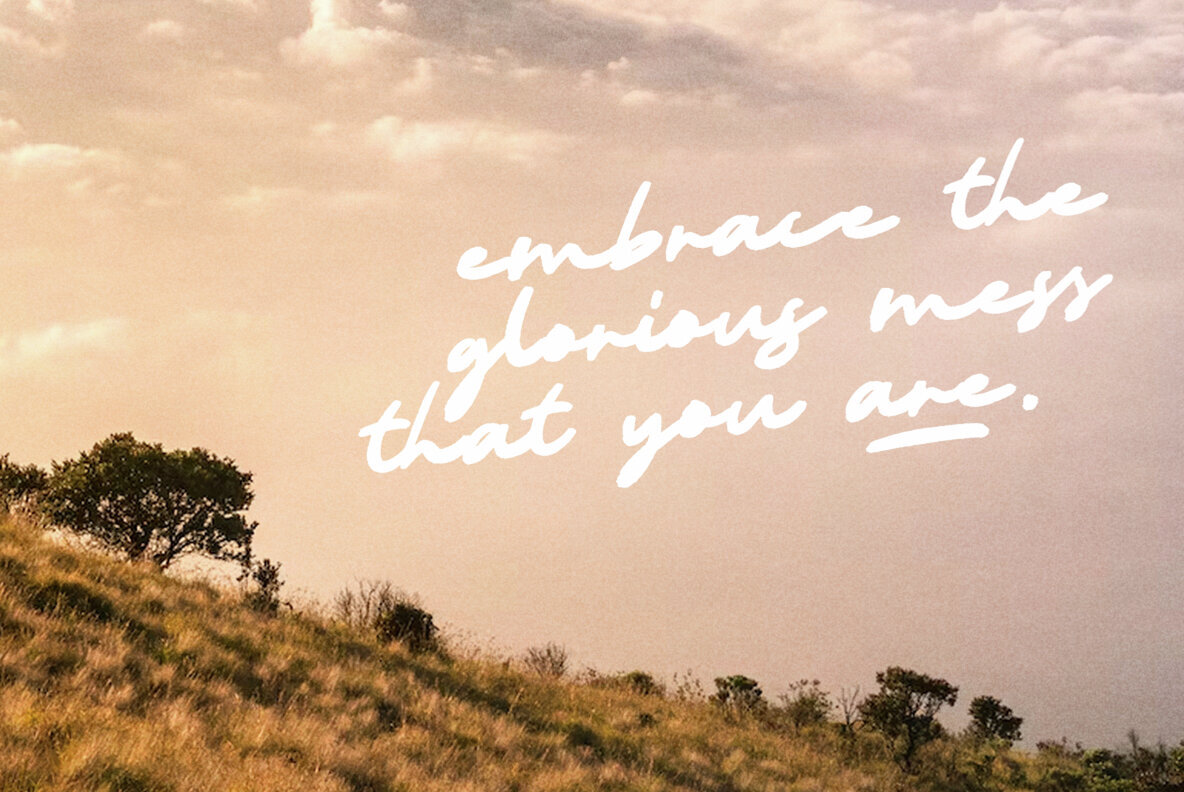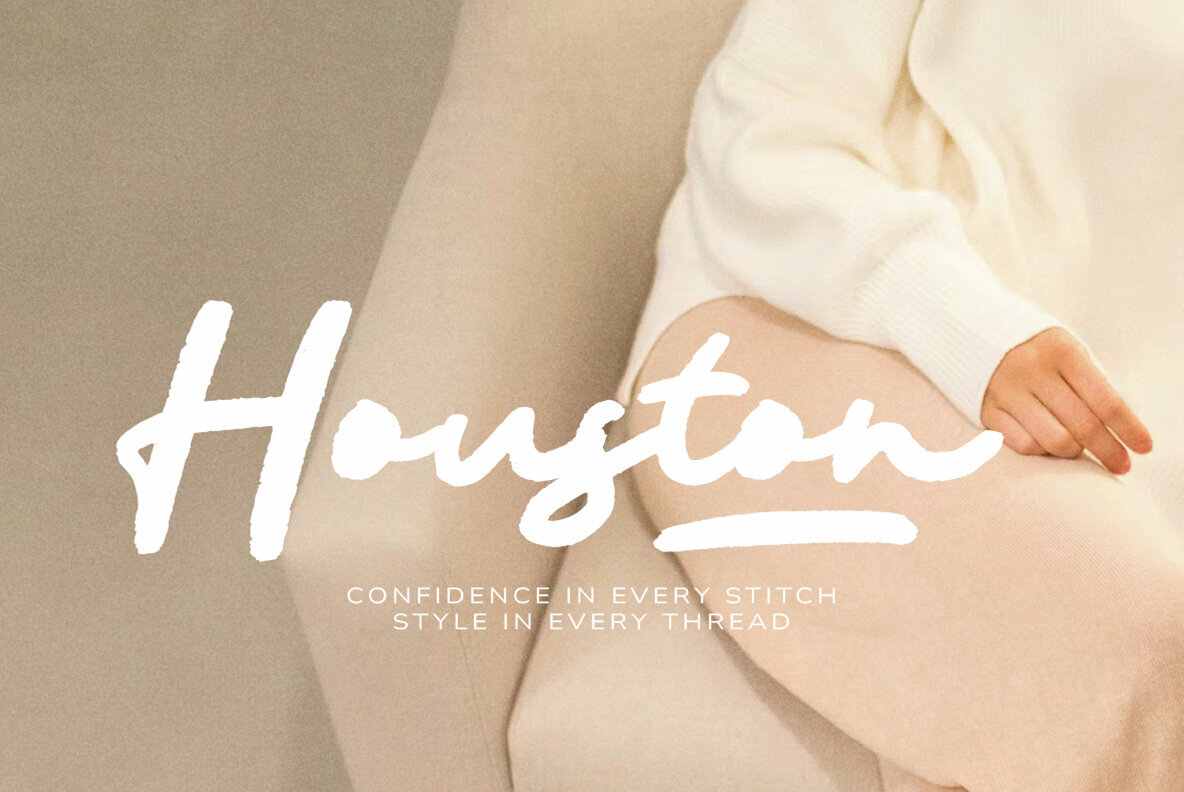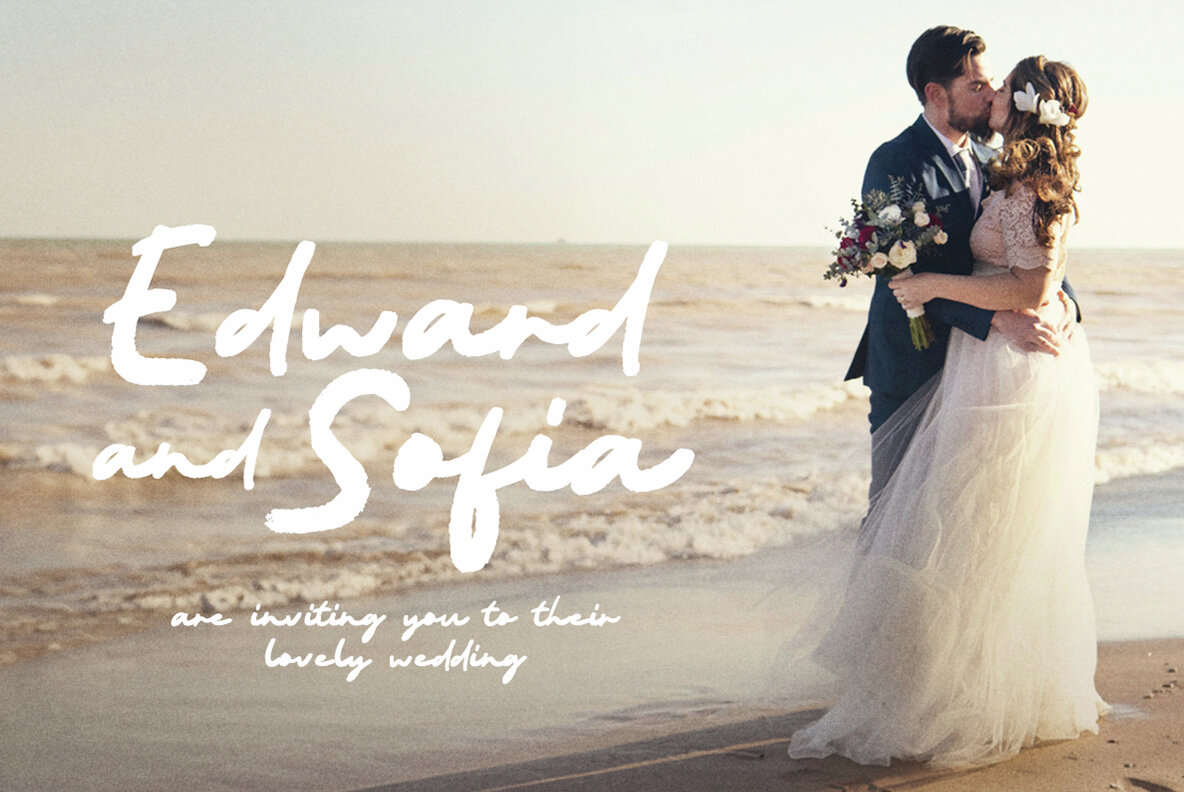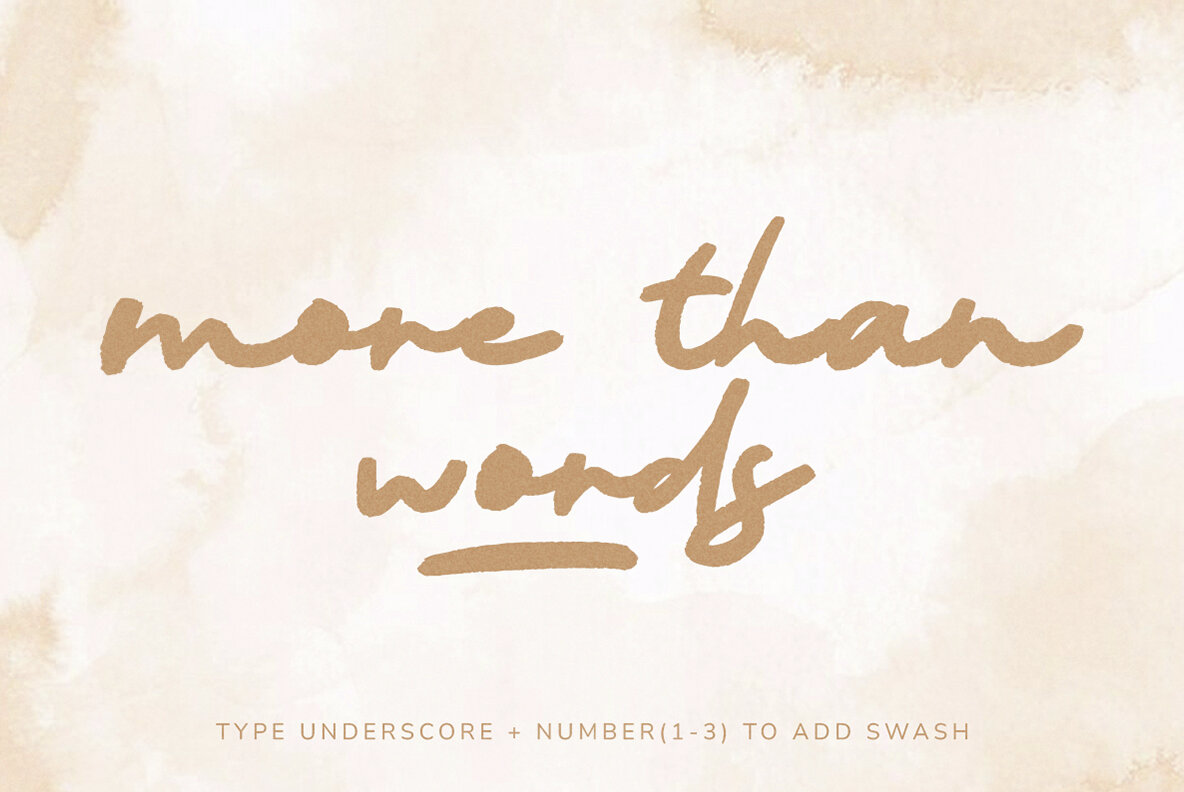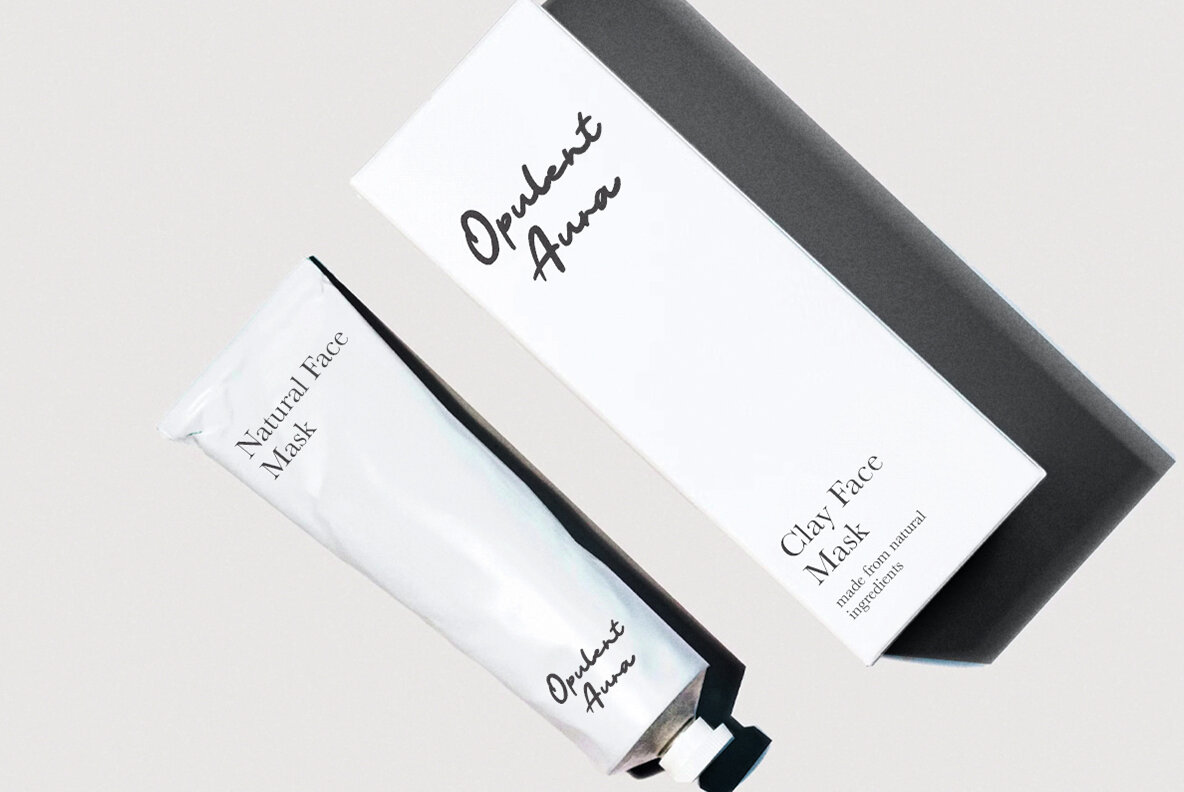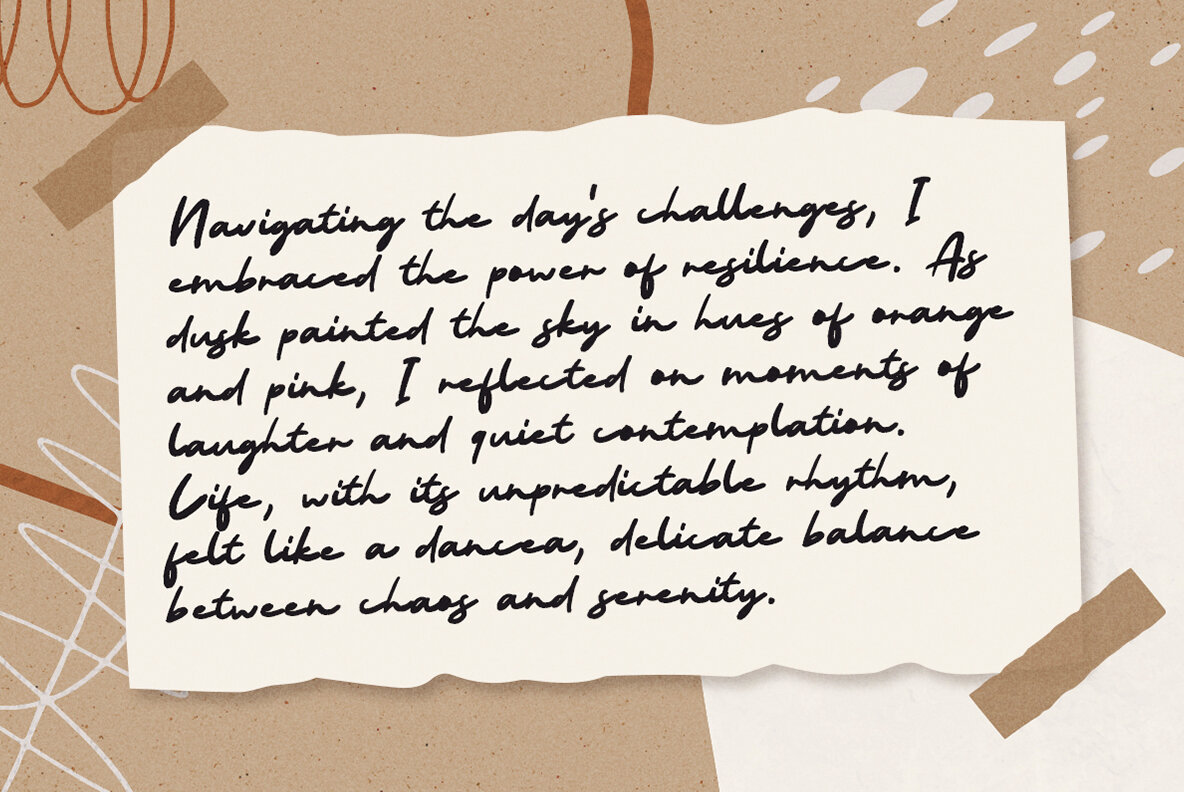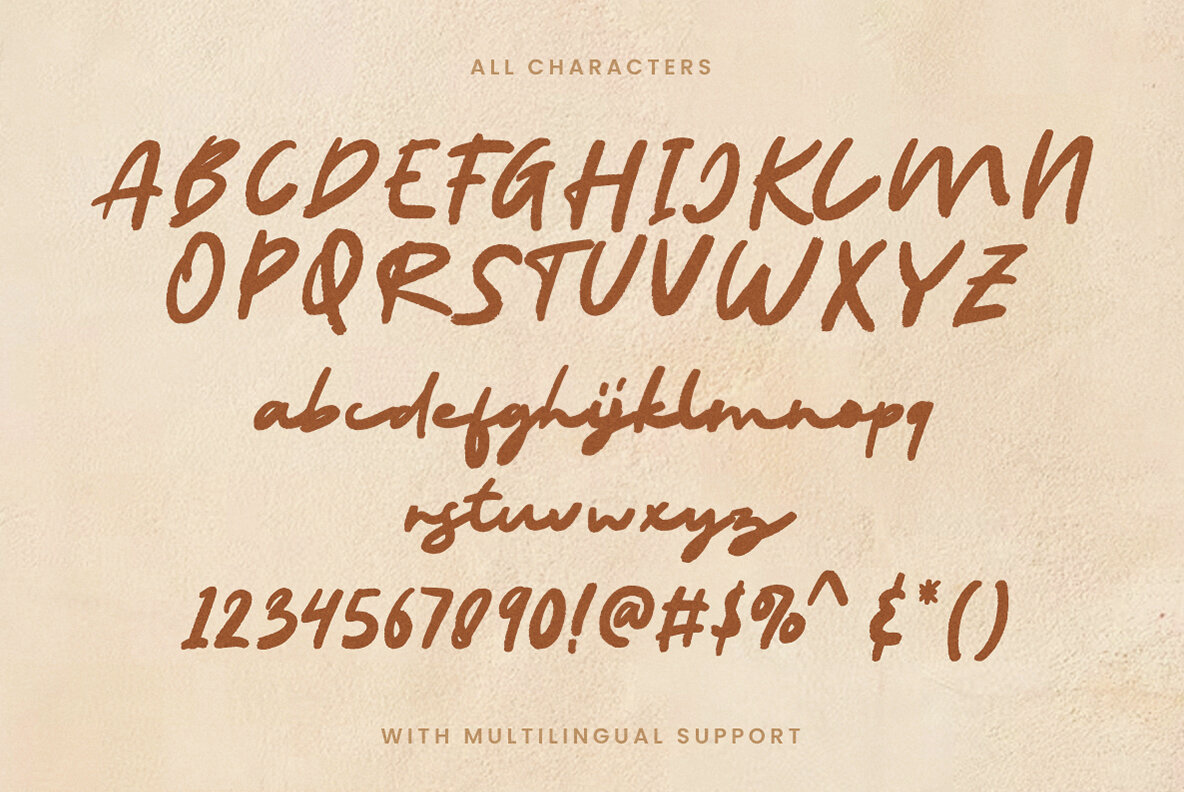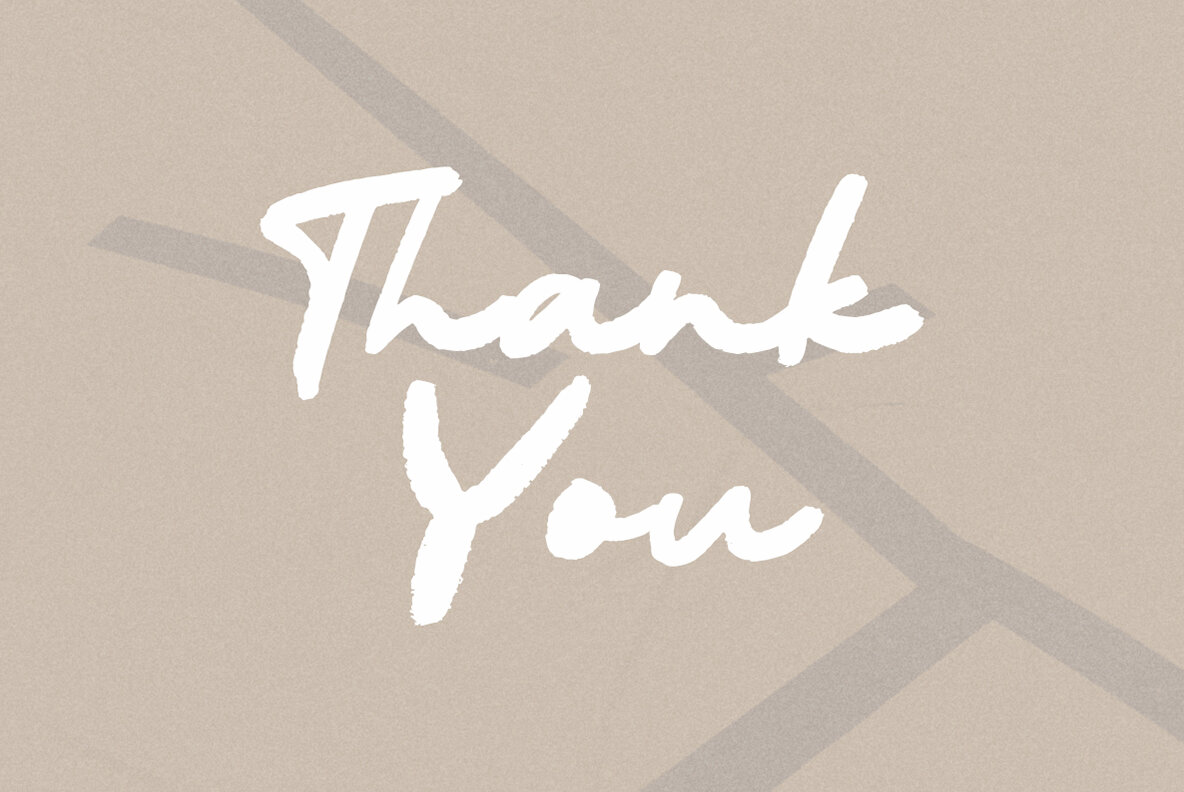
Kumala Font
Kumala Regular
Introducing "Kumala Handwritten Script," a font crafted with artistic finesse and a touch of personal charm. Embracing the beauty of imperfection, this script font captures the essence of hand-drawn strokes, bringing a unique character to your projects. Whether used for invitations, quotes, or branding, "Kumala" adds a distinctively human touch. Its fluid lines and versatile nature make it a perfect choice for those seeking a blend of elegance and informality. With a range of characters and a warm, inviting vibe, "Kumala Handwritten Script" is designed to elevate your creative expressions. Unlock the potential of personalized typography with "Kumala Handwritten Script" and infuse your designs with a handwritten authenticity that resonates with every stroke.